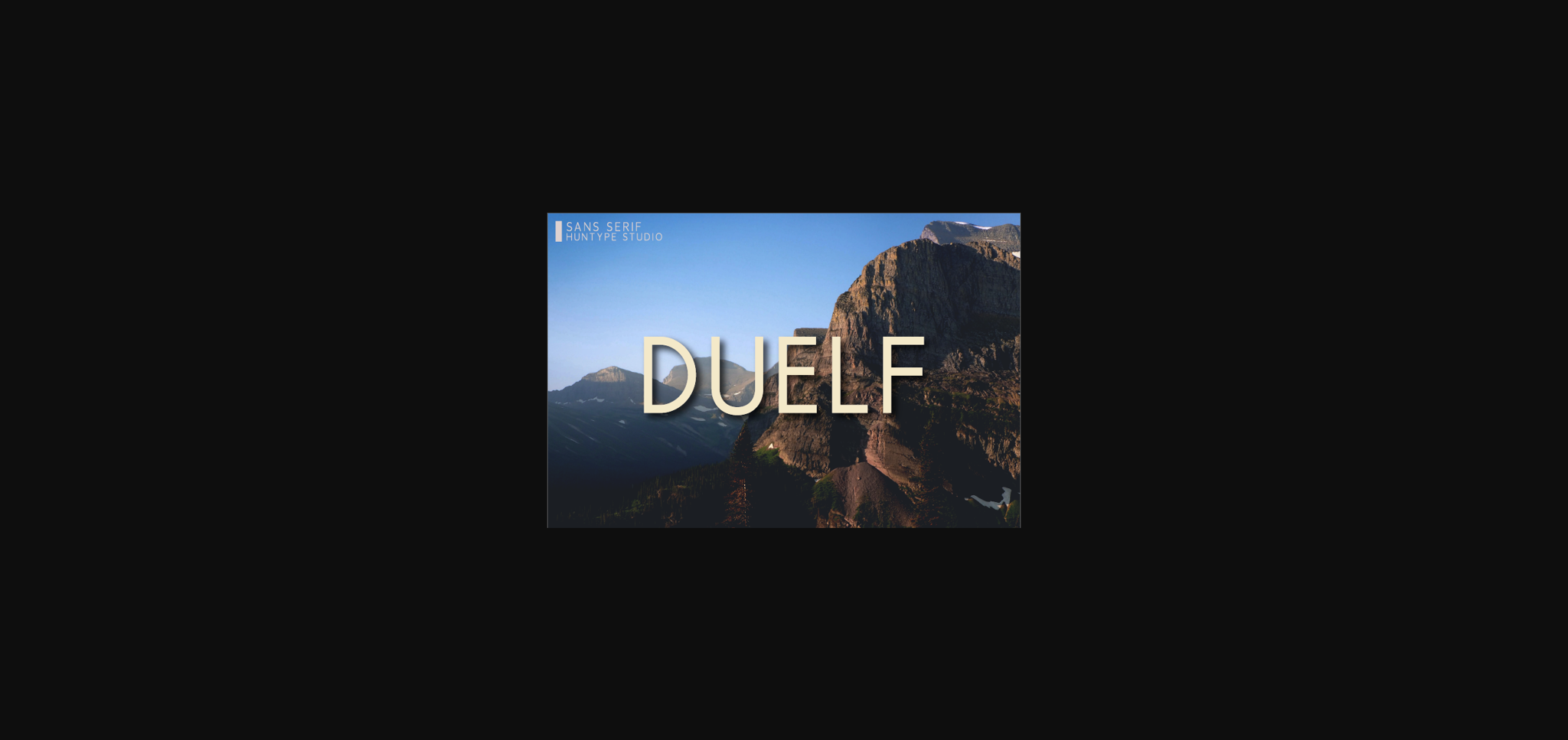
Duelf Font
About Duelf Font
Duelf is a fancy, contemporary sans serif font. With its neat and beautiful arrangement of letters, this typeface will look outstanding in both formal and non-formal designs.